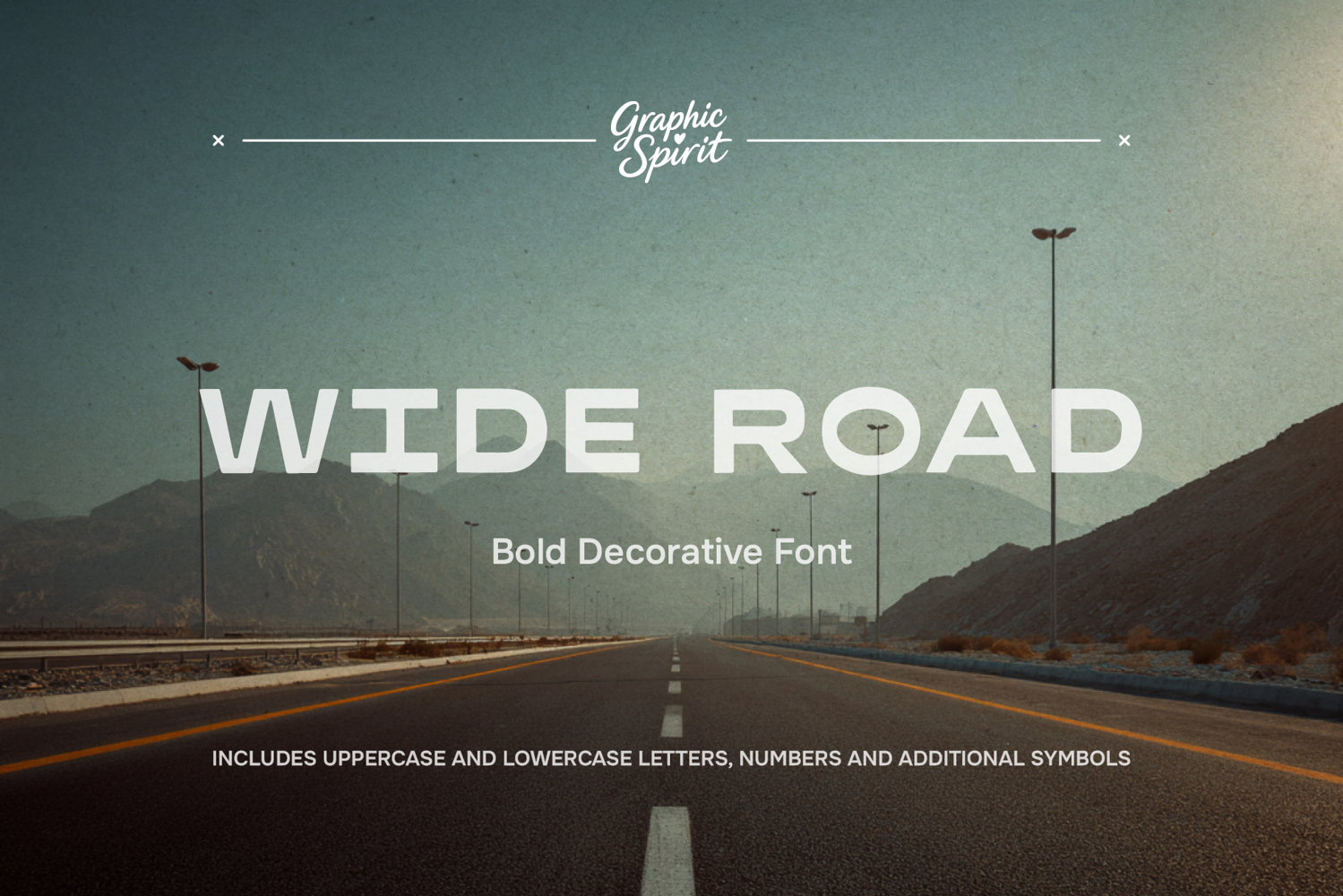
Wide Road Bold Decorative Font
🌟 Elevate your creative projects with Wide Road, a bold and commanding decorative font designed to make a serious impact. This heavyweight sans-serif typeface features strong, clean lines and a powerful presence, perfect for grabbing attention on logos, posters, t-shirts, and branding materials that demand to be noticed.